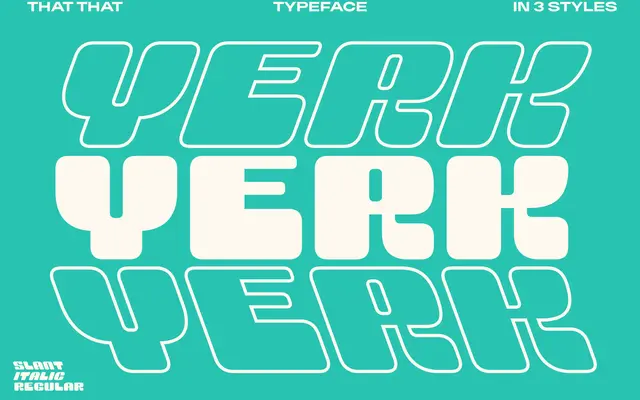
A three-style Y2K display face from That That Type, available in Regular, Italic and Slant cuts.
A compact Y2K-styled display typeface offered in three styles: Regular, Italic and a Slant variant. The glyph set covers Basic Latin and Latin-1 Supplement with Western European diacritics, alongside standard OpenType features including ordinals, superscript and standard ligatures. The aesthetic leans into early-2000s digital type trends, suited to branding or editorial work seeking period-specific nostalgia.
Described explicitly as a Y2K font, placing it in the display category with a retro-futurist aesthetic typical of late-1990s and early-2000s digital type design.